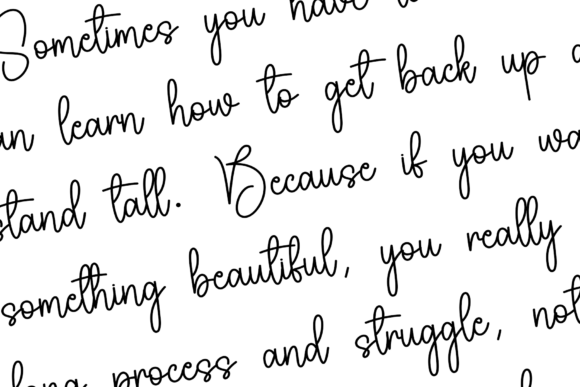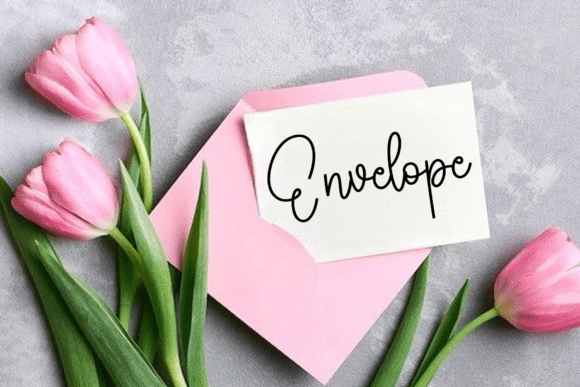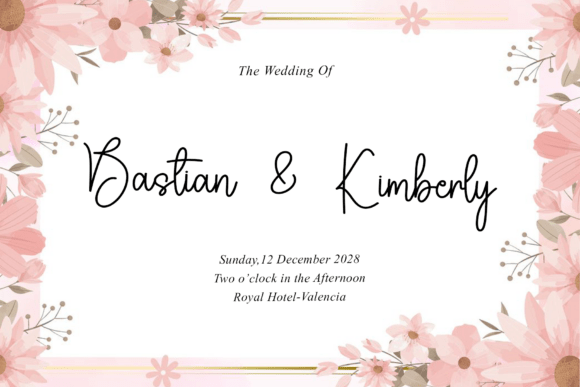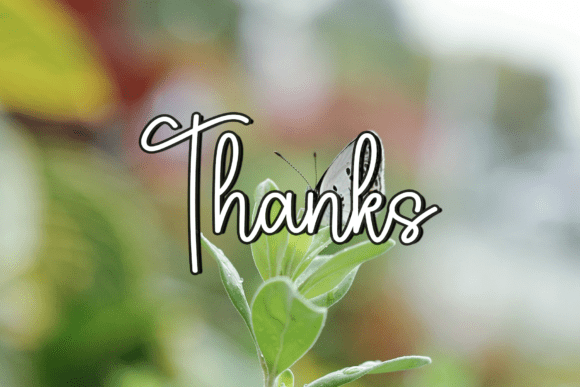
Whispers of Elegance: Unveiling the Baby Butterfly Font
As I sat at my desk, pen poised over paper, I couldn’t help but feel a sense of excitement and anticipation. I was on the hunt for the perfect font to bring my latest design project to life, something that would capture the essence of luxury and sophistication. And then, like a butterfly emerging from its cocoon, I discovered the Baby Butterfly Font.
This elegant and fluid handwritten script font is more than just a pretty face – it’s a versatile tool that can elevate any design from mundane to mesmerizing. Whether you’re crafting wedding stationery, creating event branding, or adding a touch of sophistication to your editorial work, the Baby Butterfly Font is an invaluable asset in your design arsenal.
Baby Butterfly Font Key Features
- Font Type: Hand-drawn, cursive script font
- Unique Characteristics: Features intricate, swirling designs and subtle texture, giving it a whimsical and playful feel
Baby Butterfly Font Review
Overall, I think the Baby Butterfly Font is a sweet and whimsical choice for designers looking for a playful, hand-drawn feel. ✨ Here are some things that I think work well:
- The font’s delicate, curved lines and subtle flair give it a charming, childlike quality.
- The range of weights and styles available makes it versatile for use in a variety of design contexts.
- The font’s small size doesn’t compromise its readability, even at very small point sizes.
However, I do have some concerns about the font’s limitations:
- ⚠️ The font’s intricate details can make it difficult to read at very large point sizes, and the text may appear overly cluttered or busy.
- ⚠️ The font’s limited range of languages supported may limit its use in certain design projects.
In terms of overall impression, I think the Baby Butterfly Font is a great choice for designers looking to add a touch of whimsy to their projects. While it may have some limitations, its charm and versatility make it a worthwhile addition to any design toolkit.
Tips for Getting the Most Out of the Baby Butterfly Font
For optimal results:
- Use the font in conjunction with playful, colorful graphics.
- Adjust font size to create visual balance and hierarchy.
- Experiment with different font combinations for unique effects.
The Baby Butterfly Font is ideal for:
- Women’s and baby-themed product labels and packaging.
- Playful social media posts and ads.
Q: What is the recommended font size for optimal readability with Baby Butterfly Font?
For optimal readability, we recommend using the Baby Butterfly Font at a minimum size of 12 points. However, the ideal font size may vary depending on the specific design application and intended audience. Experiment with different font sizes to find the perfect balance between aesthetics and readability.